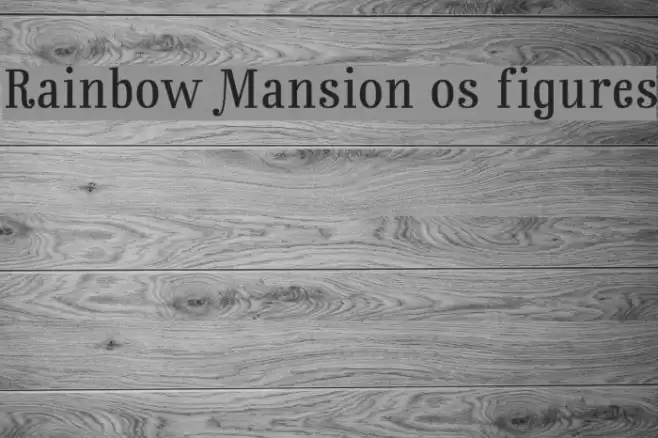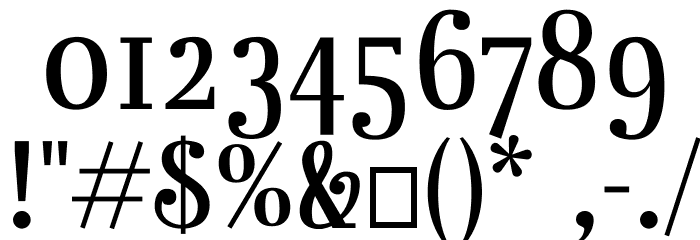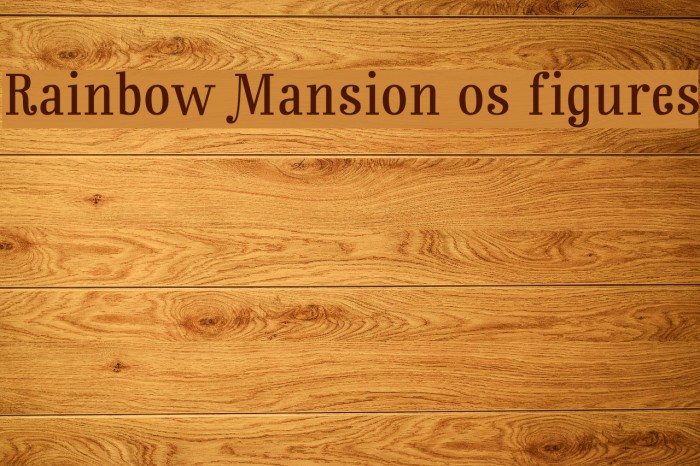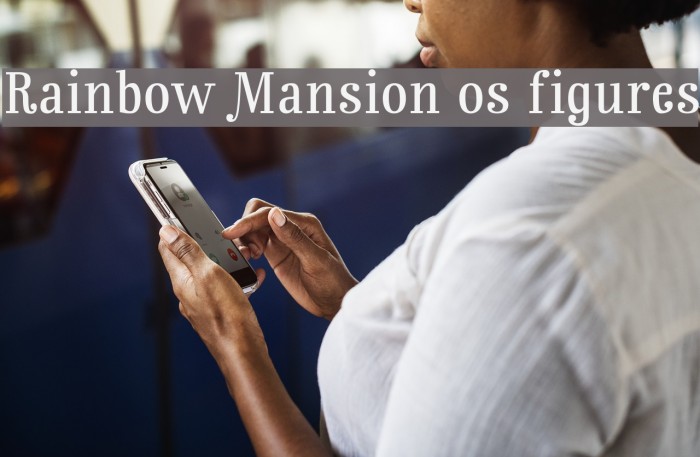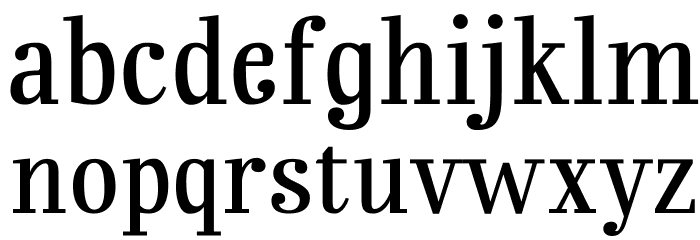
Rainbow Mansion os figures Font
Rainbow Mansion os figures Description
This font exhibits a classic serif style with elegant curves and a strong presence. The uppercase letters are bold and commanding, featuring distinct serifs that add a touch of sophistication. The lowercase letters maintain a consistent style, with smooth transitions and a slightly narrower form compared to the uppercase. The numerals are well-proportioned, offering clarity and readability. Special characters are thoughtfully designed, complementing the overall aesthetic. This font's traditional yet versatile appearance makes it suitable for a variety of applications.
A classic serif font with elegant curves and strong presence from Uncategorized fonts.
- Overall Style: Classic